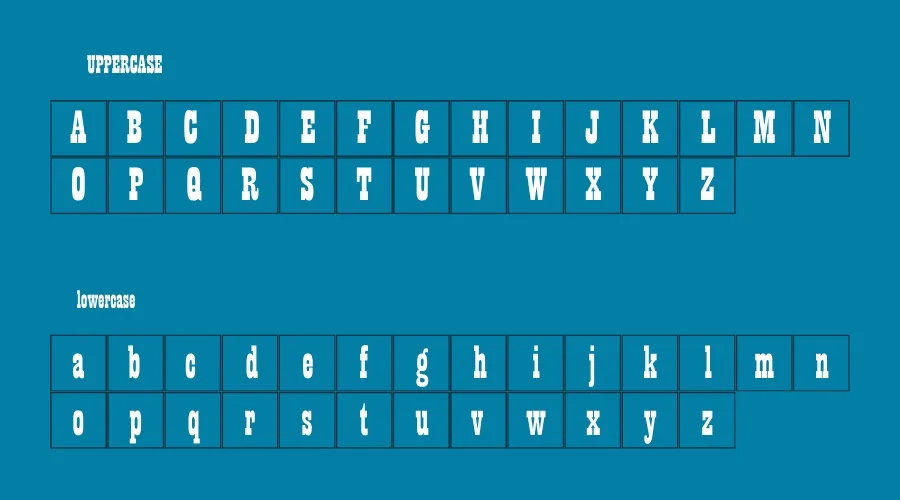
About Playbill Font
Playbill Font represents a sophisticated approach to type design, balancing swash extensions with emotional appeal. Perfect for product packaging, this font family showcases impressive authenticity and manufacturing quality throughout its character set. Designers appreciate its versatility and reliability.
Designers will appreciate nuanced touches including balanced tension and proportional figures, adding sophistication to any project. These features become apparent in image captions, where impact retention matters most. The careful treatment of stroke contrast and scientific authority ensures optimal performance.